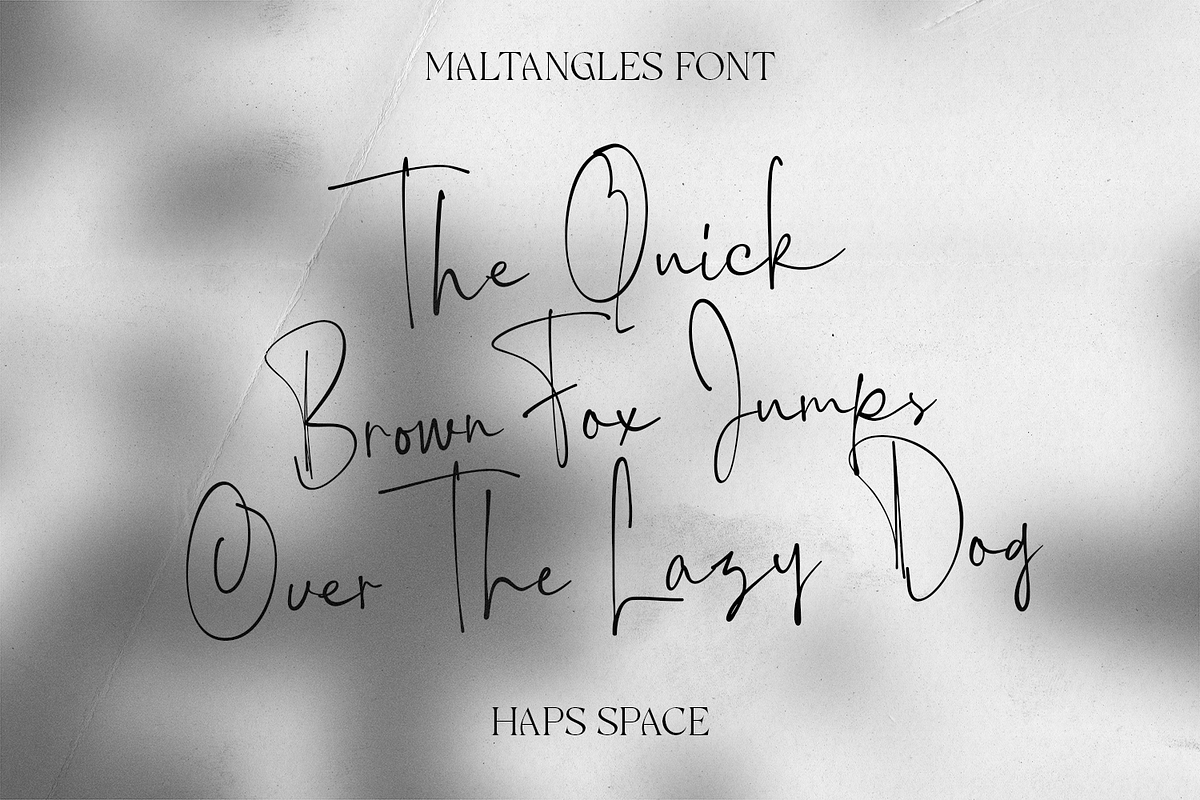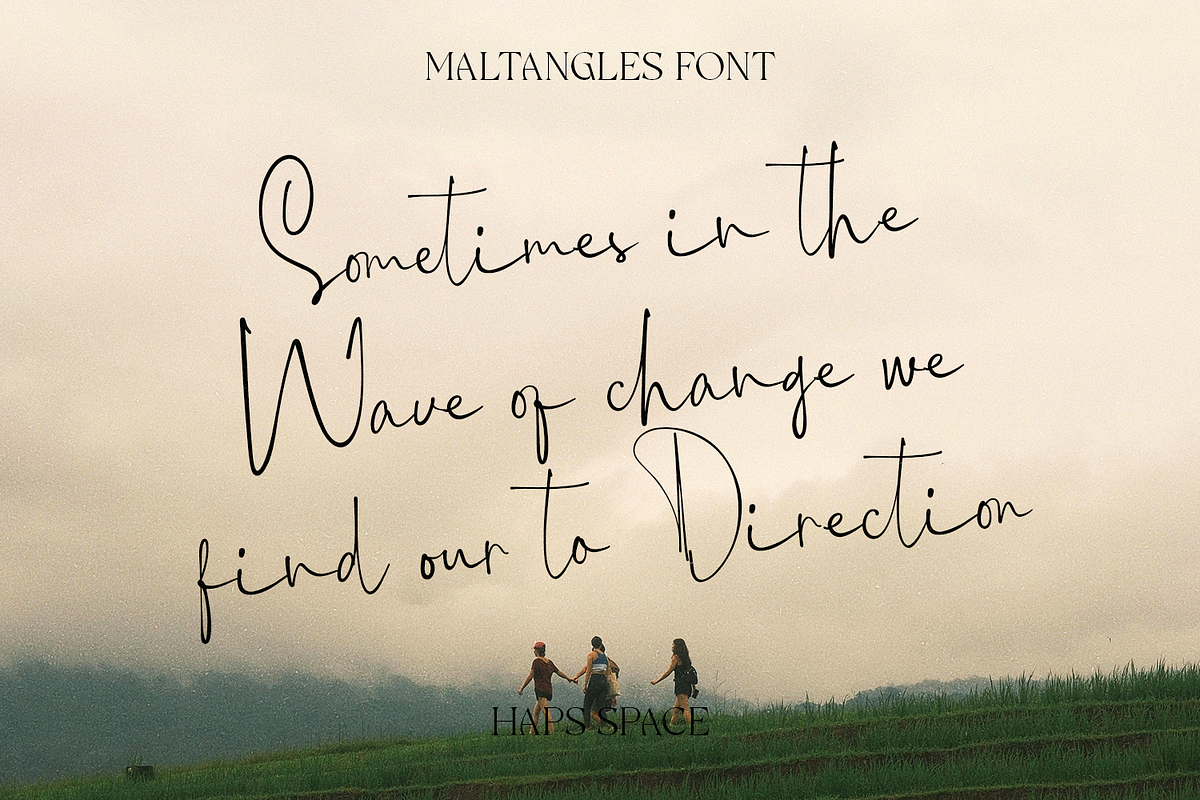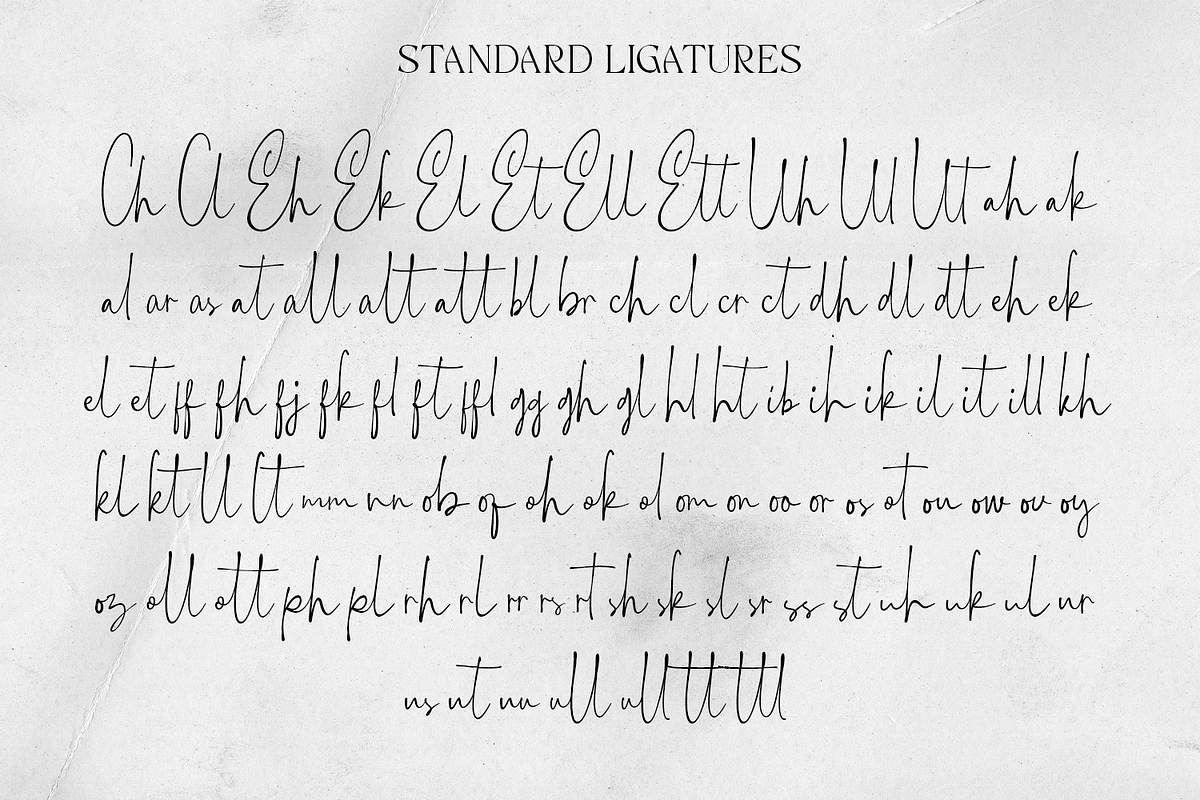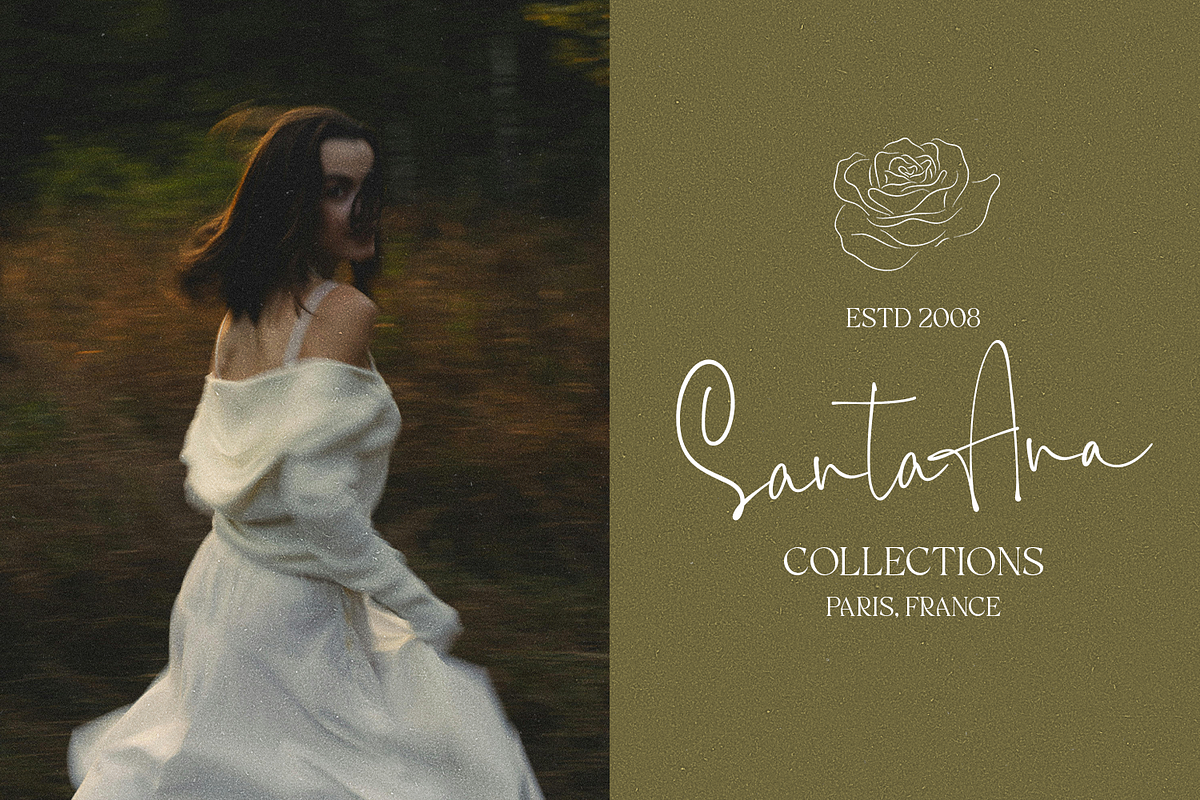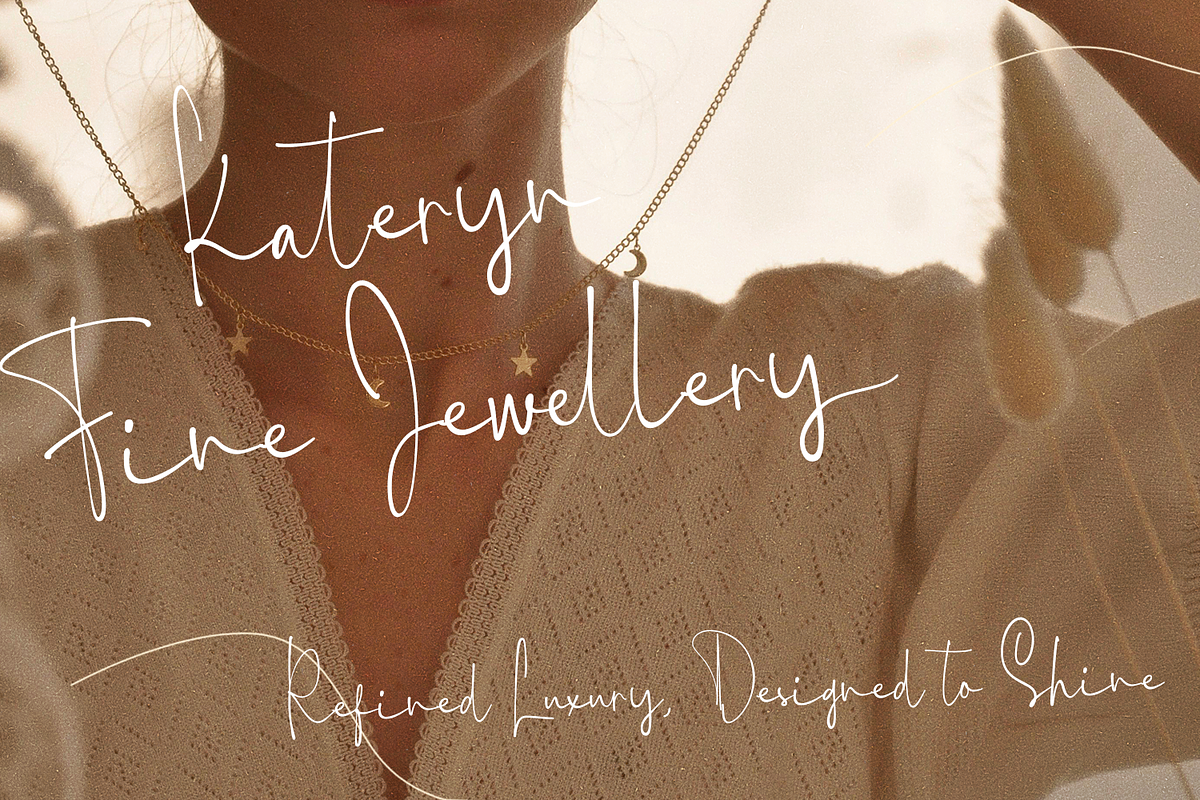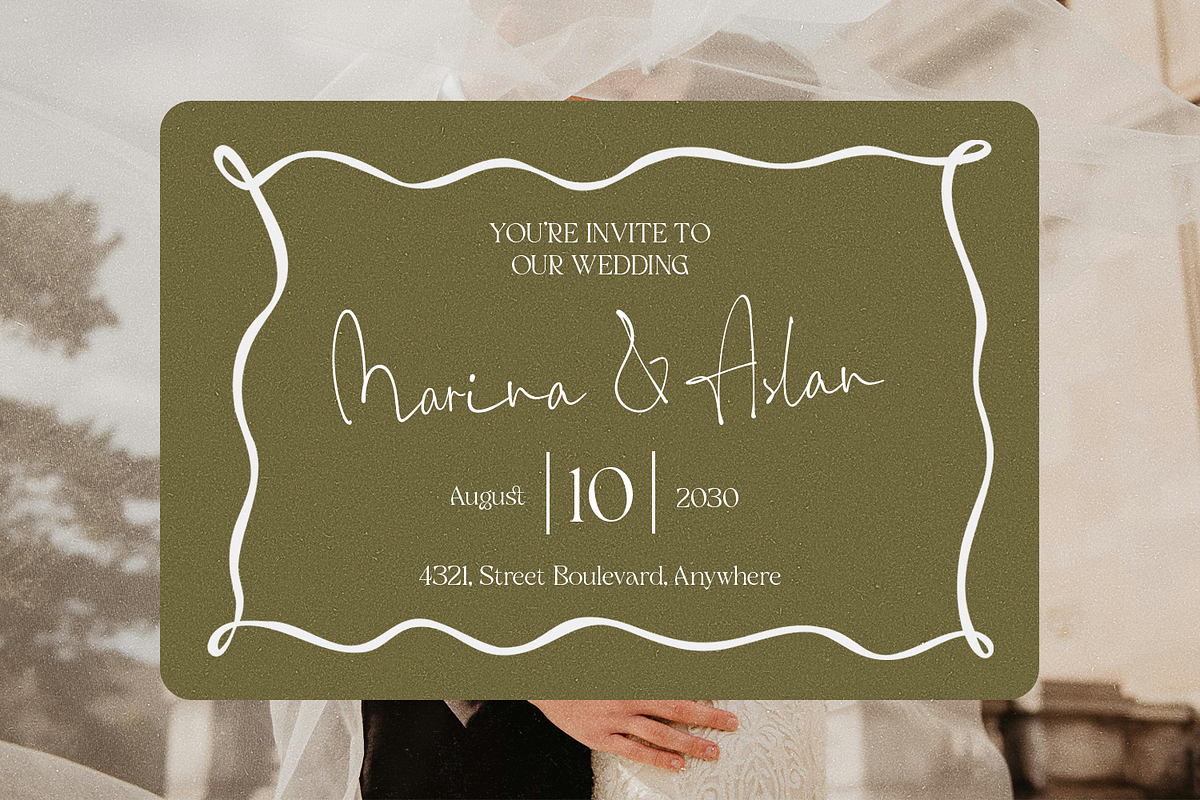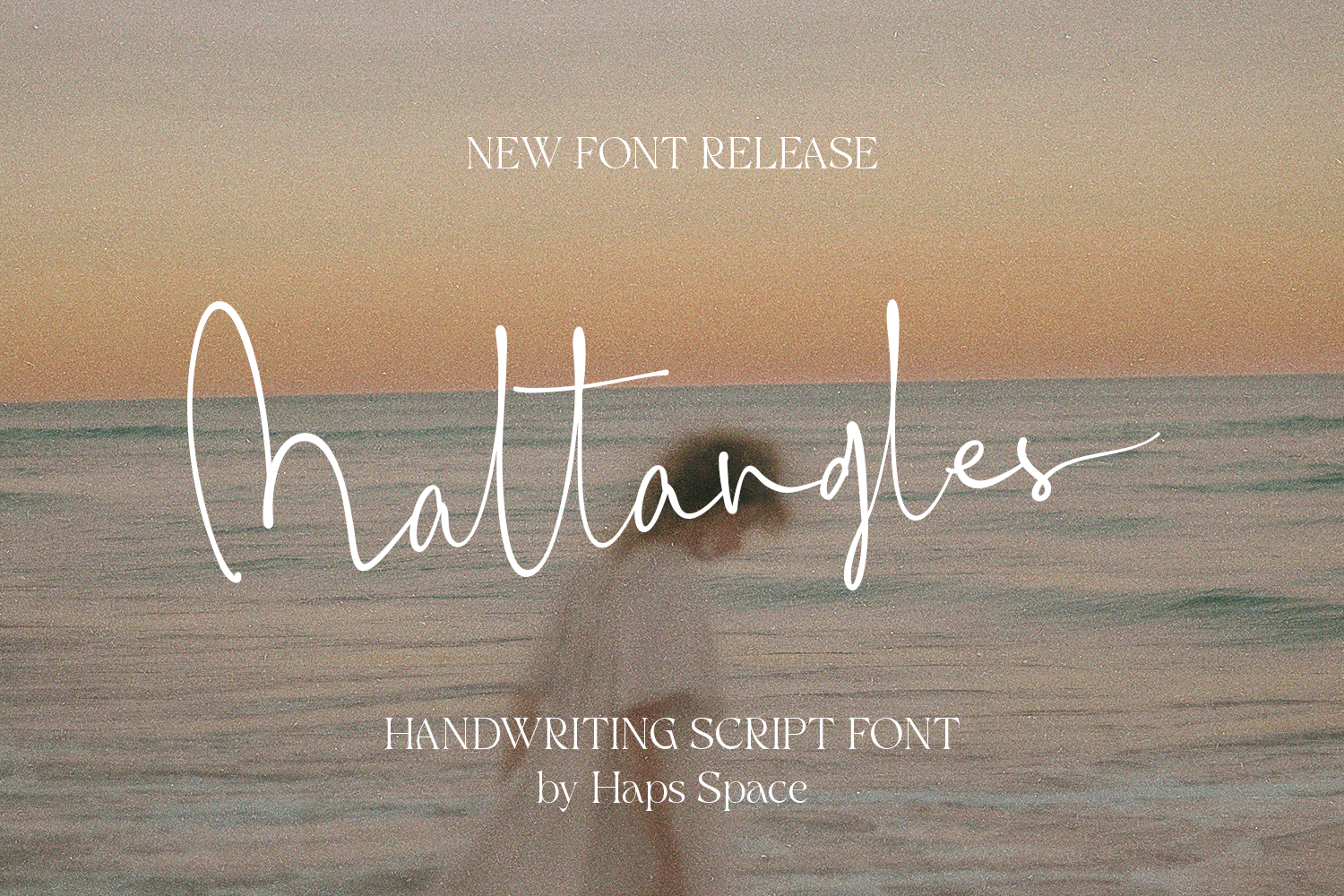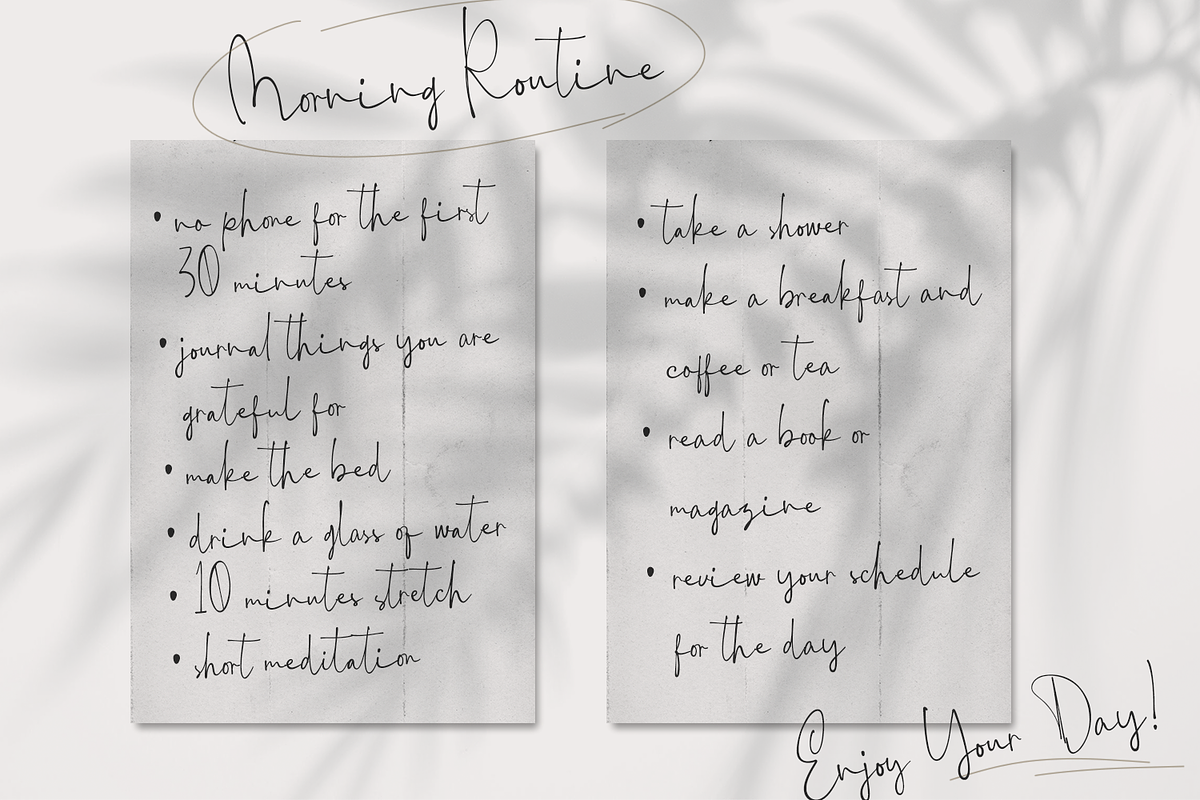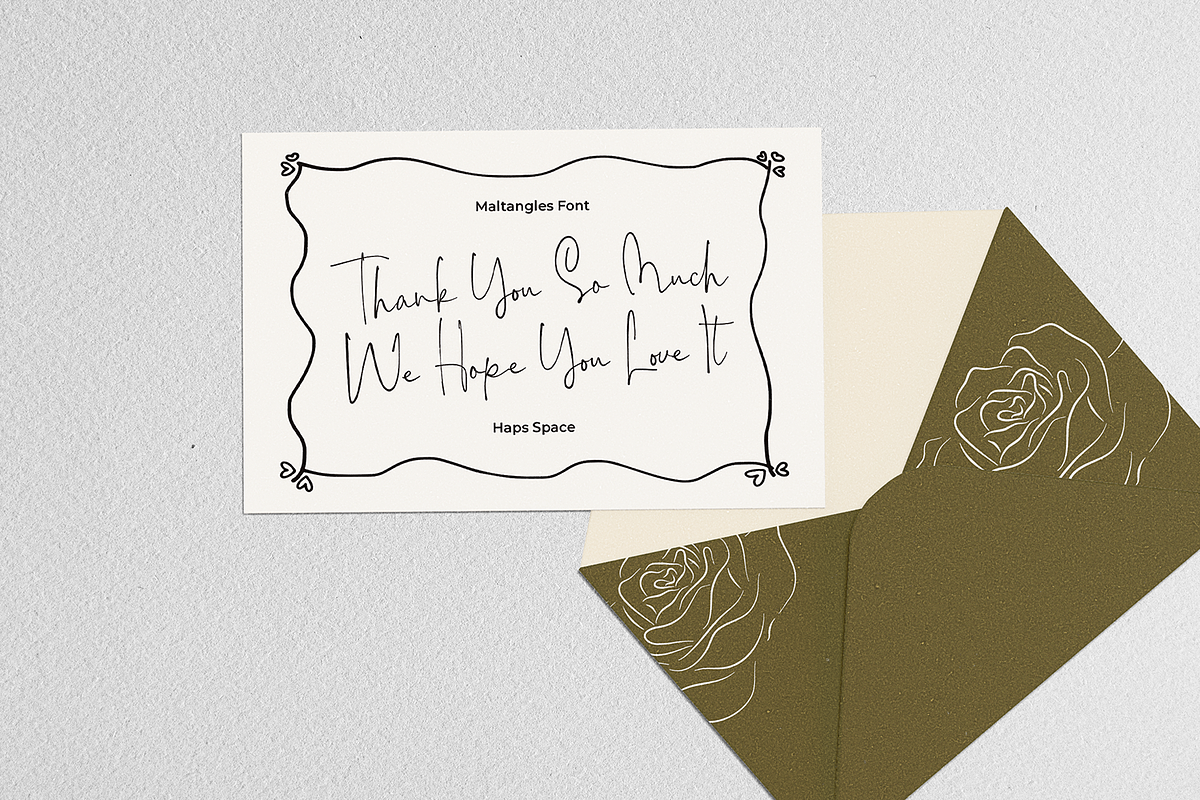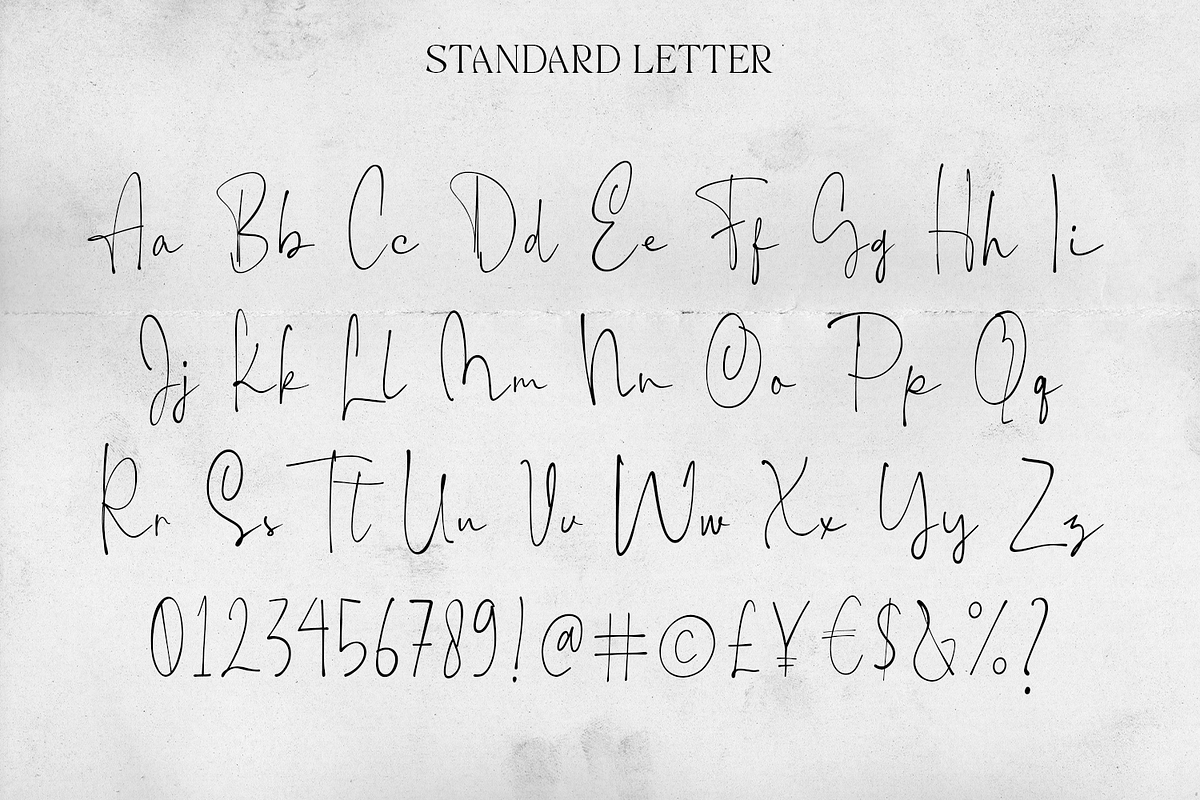
Maltangles - Signature Font
Maltangles Signature is an elegant handwriting script font that captures the essence of delicate and fluid handwritten strokes. Its organic letterforms and graceful flow offer a natural and personal touch, making it an ideal choice for projects that require a sense of intimacy and authenticity.
Ideally suited for branding, packaging, logotypes, editorial layouts, and social media graphics. Its refined handwritten appearance adds a personal yet professional touch, making it an excellent option for both digital and printed creative works.
- Unique Letterforms